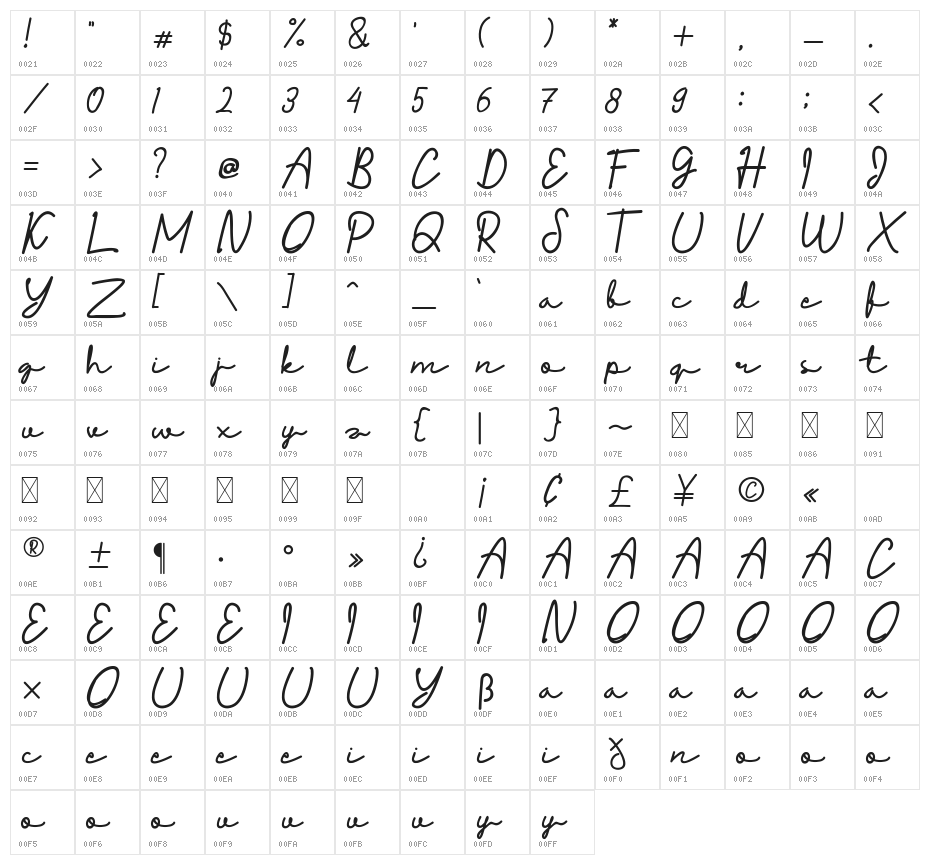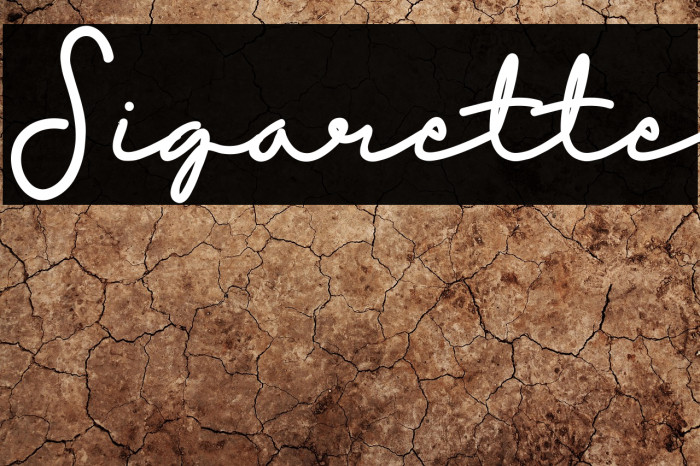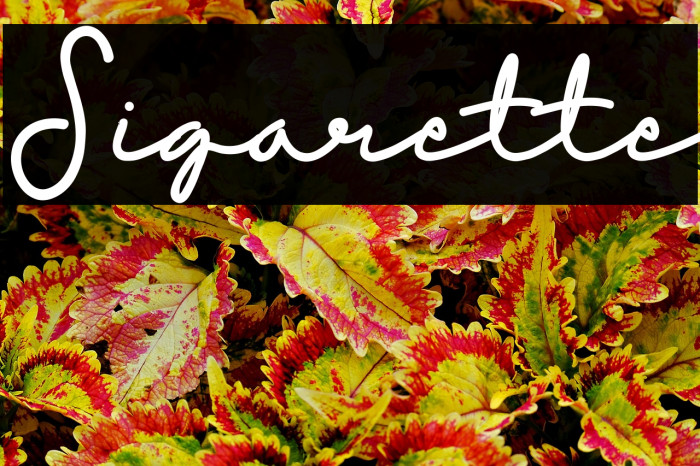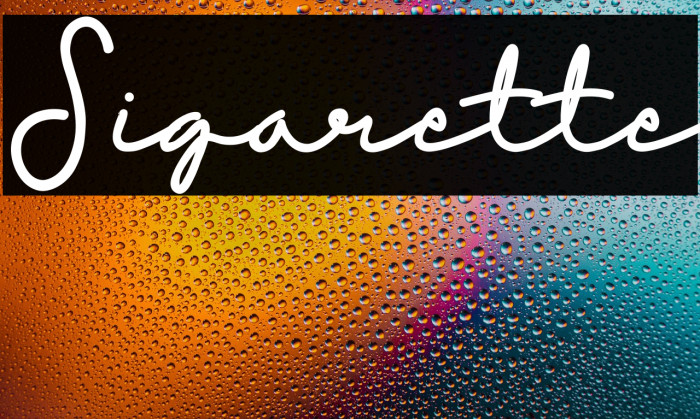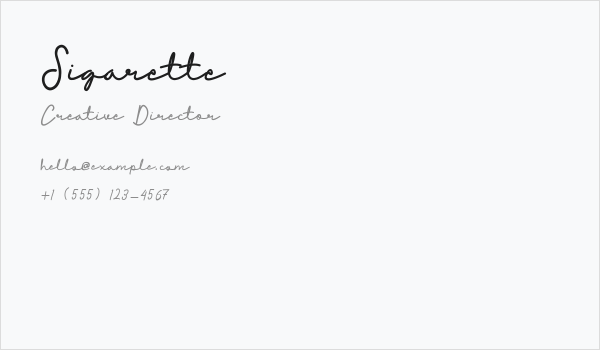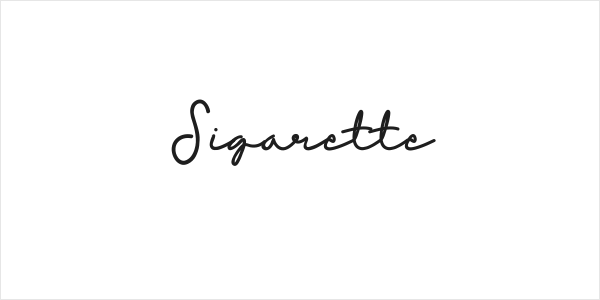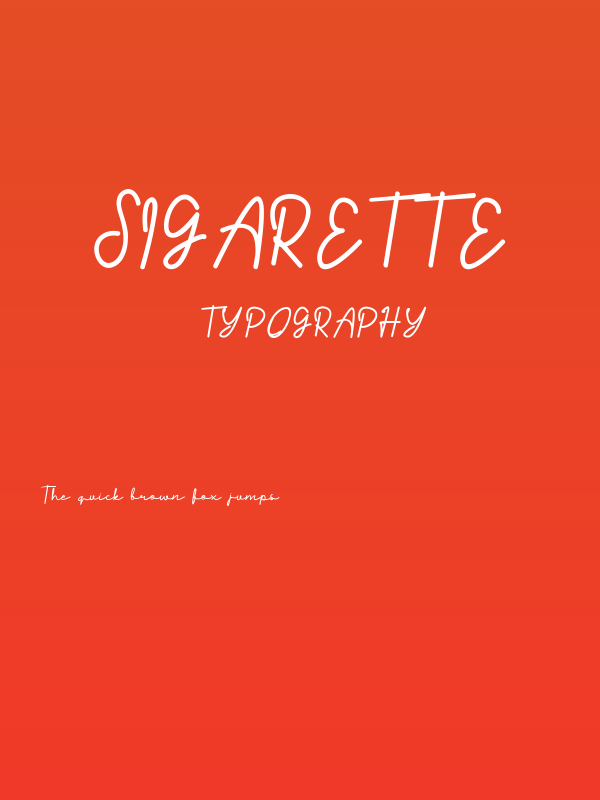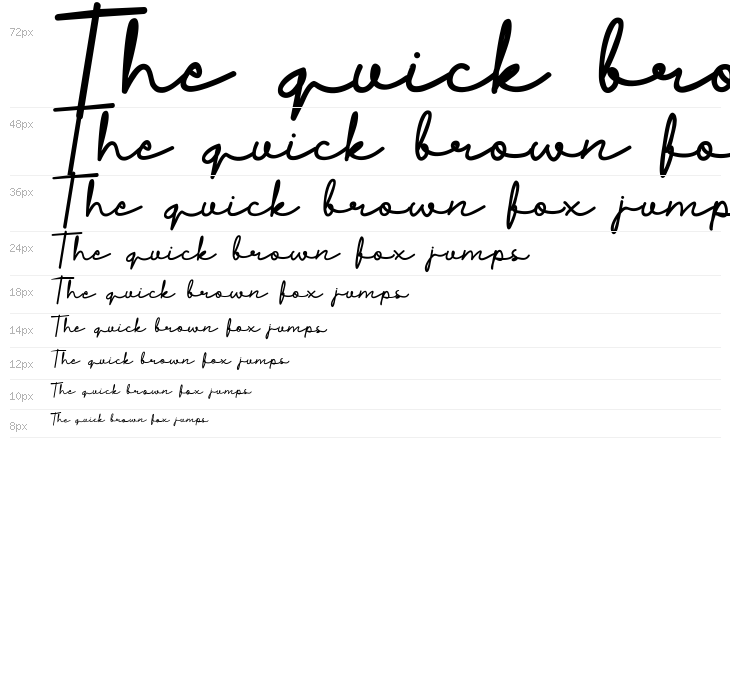
Sigarette Font
Sigarette Description
This font features a playful and casual script style, characterized by its smooth, flowing lines and slightly irregular strokes. The uppercase letters are bold and dynamic, with a slight slant that adds a sense of movement. The lowercase letters are more connected, enhancing the handwritten feel. Numbers and special characters maintain the same lively aesthetic, making them suitable for creative and informal designs. The overall appearance is friendly and approachable, perfect for projects that require a personal touch.
| Overall Style | Casual, Handwritten |
| Use Case | Logos, Invitations, Social Media |
| Proposed Projects | Ideal for greeting cards, invitations, personal branding, and social media graphics. |